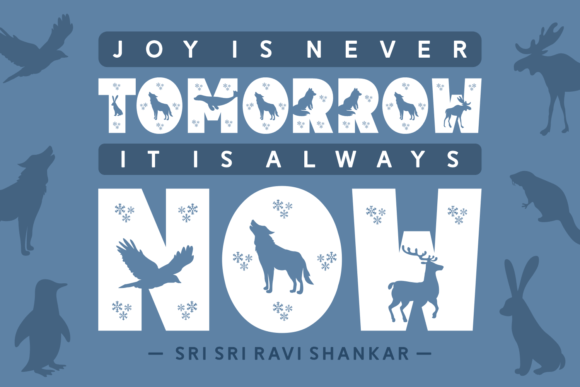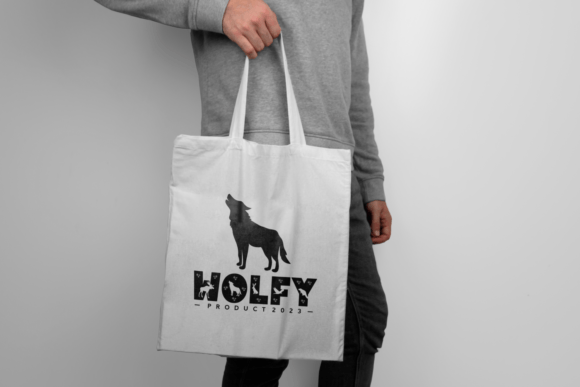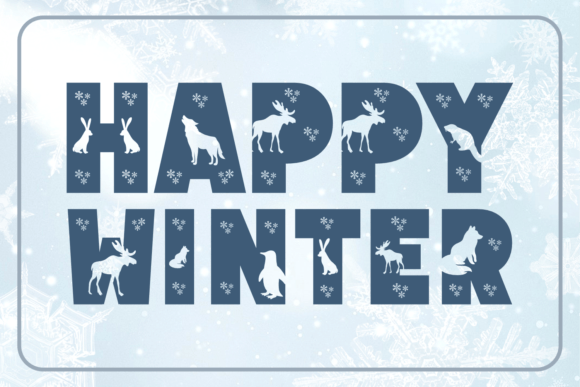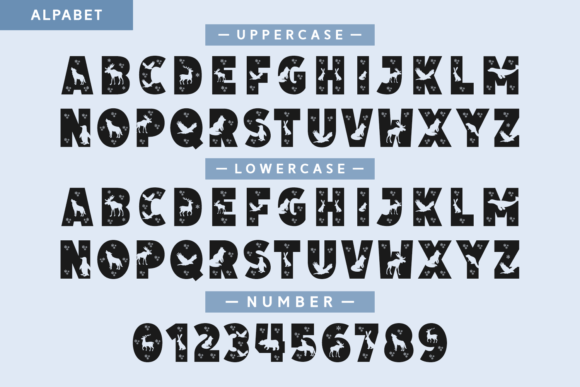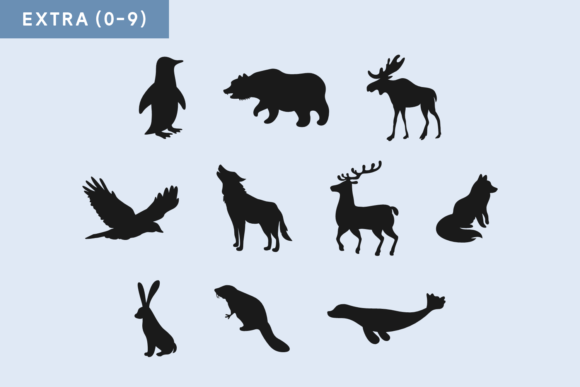
Introducing Amiko Winter Font: The Perfect Addition to Your Winter Designs
As the winter season approaches, designers and crafters are on the lookout for fonts that can add a touch of magic to their creations. If you’re searching for a font that’s both cute and bold, look no further than Amiko Winter Font. This charming animal-themed font is perfect for winter-themed designs, and we’re excited to share its features and benefits with you.
What is Amiko Winter Font?
Amiko Winter Font is a unique and eye-catching font that’s designed to bring a smile to your face. Its animal-themed designs are sure to delight, and its bold and playful style makes it perfect for a wide range of winter-themed projects. Whether you’re creating invitations, cards, quotes, fabric prints, crafts, or digital typography, Amiko Winter Font is the perfect choice.
Key Features of Amiko Winter Font
So, what makes Amiko Winter Font so special? Here are just a few of its key features:
- Cute and bold animal-themed designs: Amiko Winter Font features adorable animal designs that are sure to add a touch of whimsy to your creations.
- Perfect for winter-themed designs: From snowflakes to pinecones, Amiko Winter Font is designed to evoke the magic of the winter season.
- Versatile: This font is perfect for a wide range of projects, including invitations, cards, quotes, fabric prints, crafts, digital typography, and more.
Why Choose Amiko Winter Font?
With so many fonts to choose from, why should you choose Amiko Winter Font? Here are just a few reasons:
- Unique and eye-catching designs: Amiko Winter Font features truly unique and eye-catching designs that are sure to make your creations stand out.
- High-quality: Amiko Winter Font is a high-quality font that’s designed to deliver exceptional results.
- Perfect for designers and crafters: Whether you’re a professional designer or a crafter, Amiko Winter Font is the perfect choice for anyone looking to add a touch of magic to their creations.
How to Use Amiko Winter Font
So, how can you use Amiko Winter Font in your designs? Here are just a few ideas:
- Invitations: Use Amiko Winter Font to create adorable winter-themed invitations for parties, events, and more.
- Cards: Create beautiful winter-themed cards for friends and family using Amiko Winter Font.
- Quotes: Add a touch of magic to your favorite quotes with Amiko Winter Font.
- Digital typography: Use Amiko Winter Font to create stunning digital typography for social media, blogs, and more.
- Crafts: Add a personal touch to your crafts with Amiko Winter Font.